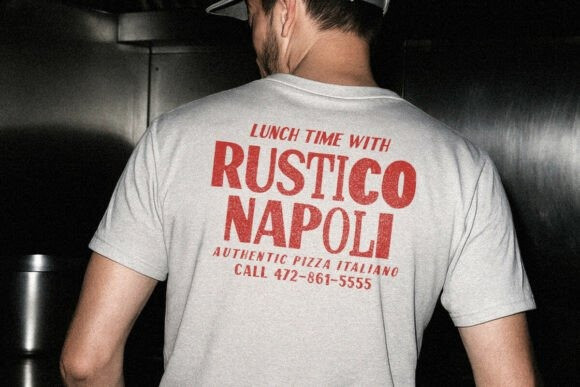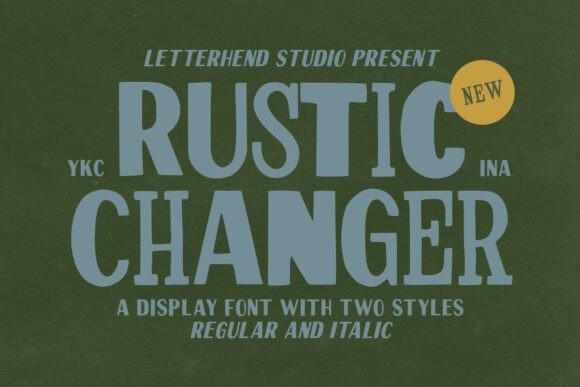
Rustic Changer Font a sense of rugged charm and artisanal craft using the Rustic Changer font. This versatile Rustic Changer typeface by Letterhend Studio comes in two distinct styles—Regular and Italic—giving you the flexibility to pivot between a grounded, stable aesthetic and a more dynamic, active feel.
Designed with a hand-drawn, blocky structure, the Rustic Changer font captures the nostalgic essence of vintage outdoor signage and heritage branding. It is the perfect choice for logos, masculine apparel design, brewing labels, and adventurous social media headers. Enhance the weathered appeal of this font by pairing it with textured overlays or forest-green and earthy-brown palettes to create a brand identity that feels established and authentic.
Whether you are building a storefront for a modern woodshop or a label for a craft beverage, the Rustic Changer font provides a bold, high-contrast silhouette that is as functional as it is full of character.